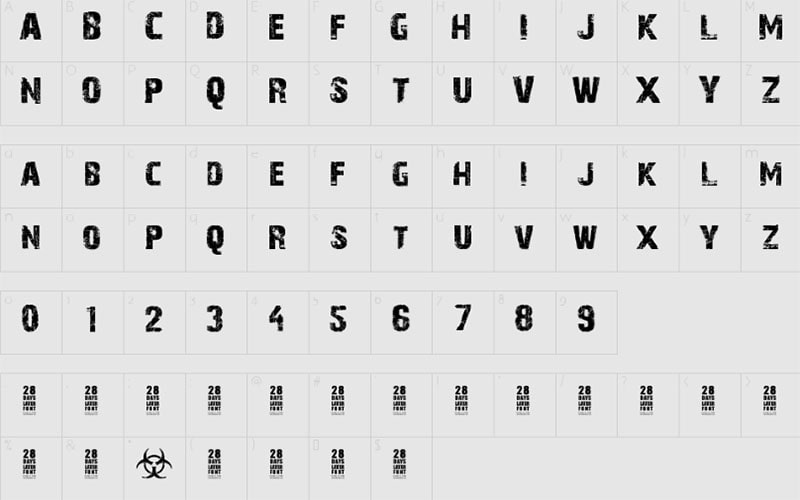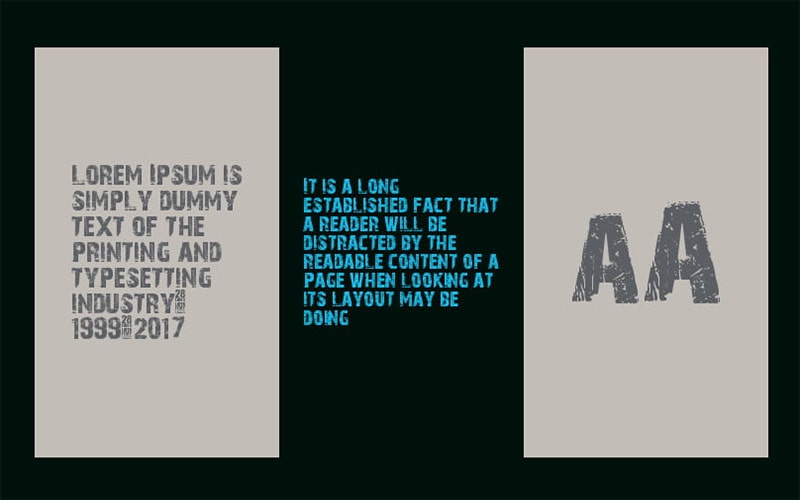
The 28 Days Later Font is inspired by the title design of the 2002 British post-apocalyptic horror film “28 Days Later,” directed by Danny Boyle.
The font is a grungy, distressed typeface that perfectly encapsulates the eerie, chaotic atmosphere of the film. Although the exact designer of the font is Filmhimmel, it is widely circulated as a free font on various websites.
Its rough, uneven edges characterize it, simulating the appearance of letters that have been weathered or eroded. This grunge style effectively creates a sense of decay, chaos, or unease, making it a favorite for horror-themed projects.
The letters are all uppercase, which enhances their bold, impactful nature. The uneven alignment and distressed texture give the font a raw, hand-crafted feel, adding to its authenticity in designs that require an unsettling or edgy aesthetic.
This font is versatile within specific genres, particularly those that require a strong, impactful visual presence. Suited for music genres such as metal, punk, or industrial, where a gritty, raw aesthetic is essential.
Typically supports English and basic Latin characters, sufficient for most Western-language designs. The all-caps style ensures that the font grabs attention, making it perfect for headlines, titles, and other prominent text elements.